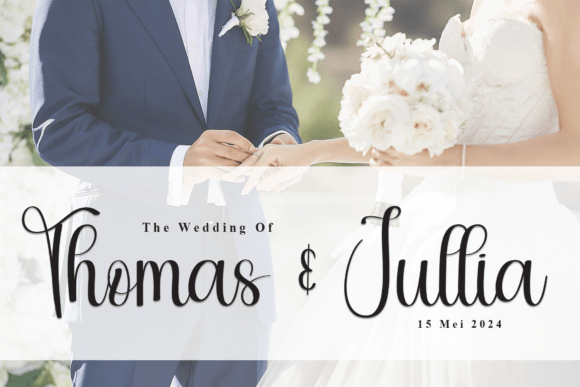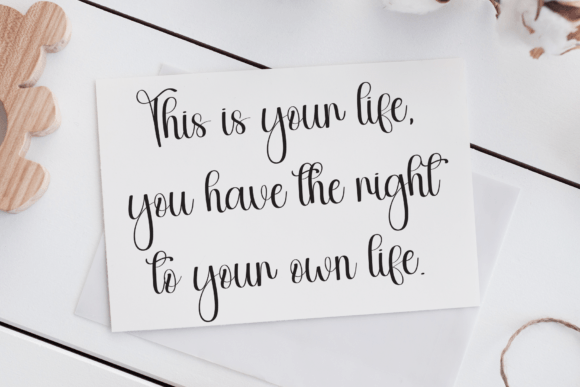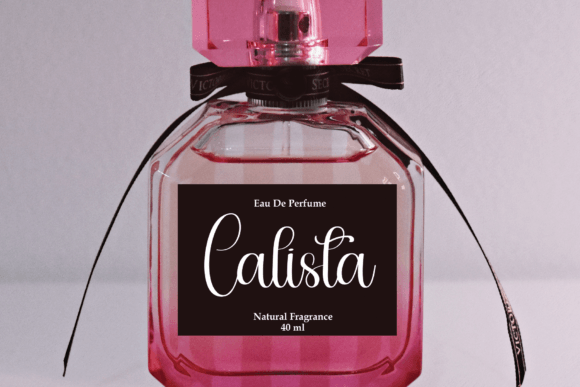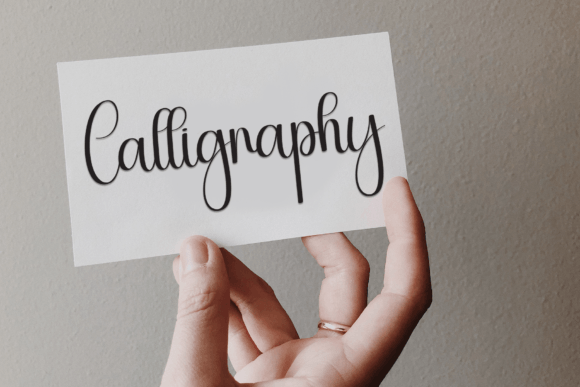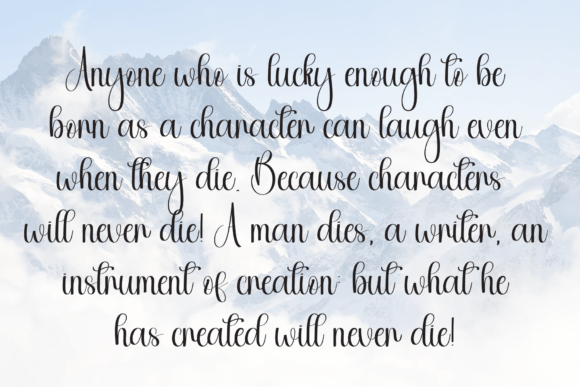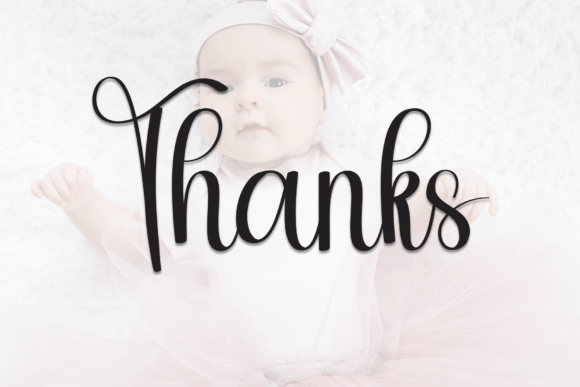
Baby Angel Font: The Ultimate Choice for Adding a Touch of Whimsy and Warmth to Your Designs
Are you on the hunt for a font that exudes warmth, friendliness, and a dash of playfulness? Look no further than the Baby Angel Font. This exquisite handwritten font is designed to infuse your designs with a heartwarming and welcoming vibe, making it perfect for a wide range of creative projects. In this article, we’ll dive into the charming world of Baby Angel Font and explore its features, uses, and benefits.
The Charm of Baby Angel Font
Baby Angel Font is an ode to sweetness and friendliness. Its delightful, fun-filled semblance makes it a perfect fit for creating captivating wedding invitations, heartfelt messages on cards, and adding a unique touch to any design longing for an infusion of joy. The font’s charming allure is sure to captivate your audience and leave a lasting impression.
One of the standout features of Baby Angel Font is its handwritten style. The font’s imperfections and quirks give it a personal and intimate feel, making it perfect for designs that require a touch of warmth and personality. Whether you’re creating a wedding invitation, a greeting card, or a social media post, Baby Angel Font is sure to add a dash of whimsy and charm to your design.
Uses of Baby Angel Font
Baby Angel Font is a versatile font that can be used in a wide range of creative projects. Here are some of the most popular uses of this exquisite font:
- Wedding Invitations: Baby Angel Font is perfect for creating beautiful and elegant wedding invitations. The font’s whimsical and romantic style makes it ideal for couples who want to add a touch of personality to their wedding stationery.
- Greeting Cards: The font’s heartfelt and welcoming vibe makes it perfect for creating greeting cards for special occasions such as birthdays, anniversaries, and holidays.
- Social Media Posts: Baby Angel Font can add a touch of whimsy and charm to your social media posts. Use it to create eye-catching graphics, quotes, and announcements that will engage your audience.
- Branding and Packaging: The font’s unique and playful style makes it perfect for branding and packaging designs. Use it to create a memorable and distinctive brand identity that will stand out from the crowd.
Benefits of Using Baby Angel Font
There are many benefits to using Baby Angel Font in your designs. Here are some of the most significant advantages:
- Unique and Playful Style: Baby Angel Font has a unique and playful style that will add a touch of whimsy and charm to your designs.
- Easy to Read: The font is easy to read and understand, making it perfect for designs that require a clear and concise message.
- Versatile: Baby Angel Font is a versatile font that can be used in a wide range of creative projects.
- High-Quality: The font is of high-quality, making it perfect for professional designs.
Tips for Using Baby Angel Font
Here are some tips for using Baby Angel Font in your designs:
- Pair it with Other Fonts: Baby Angel Font can be paired with other fonts to create a unique and visually appealing design.
- Use it for Headings: The font is perfect for headings and titles. Use it to create eye-catching headings that will grab the attention of your audience.
- Add Graphics and Images: Baby Angel Font can be paired with graphics and images to create a visually appealing design.
In conclusion, Baby Angel Font is a beautiful and versatile font that can add a touch of whimsy and charm to your designs. Its unique and playful style makes it perfect for a wide range of creative projects, from wedding invitations to social media posts. With its high-quality and easy-to-read style, Baby Angel Font is a great choice for designers and crafters who want to create captivating and memorable designs.